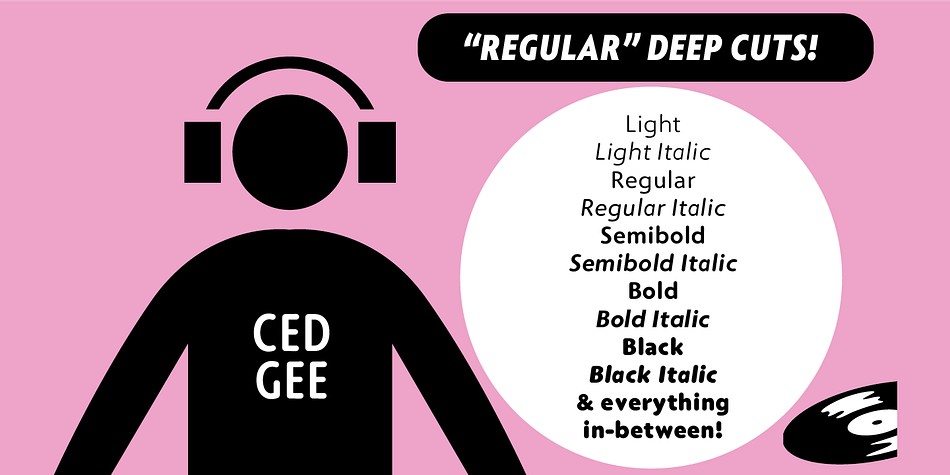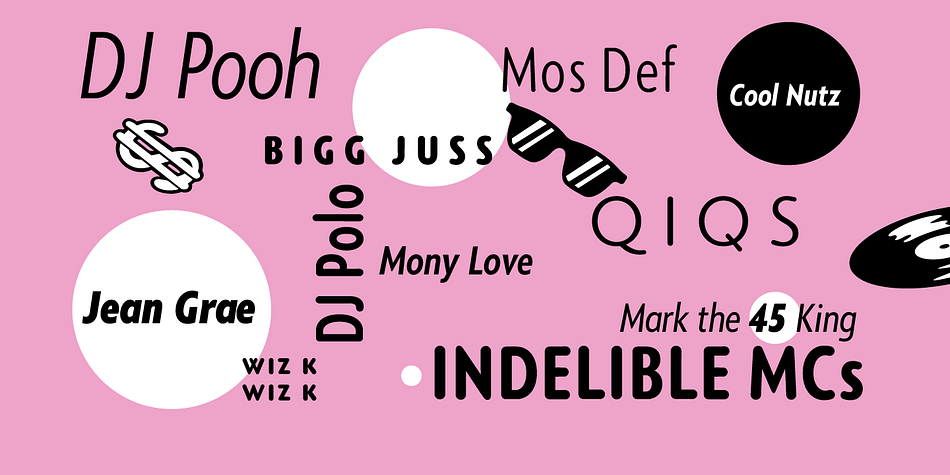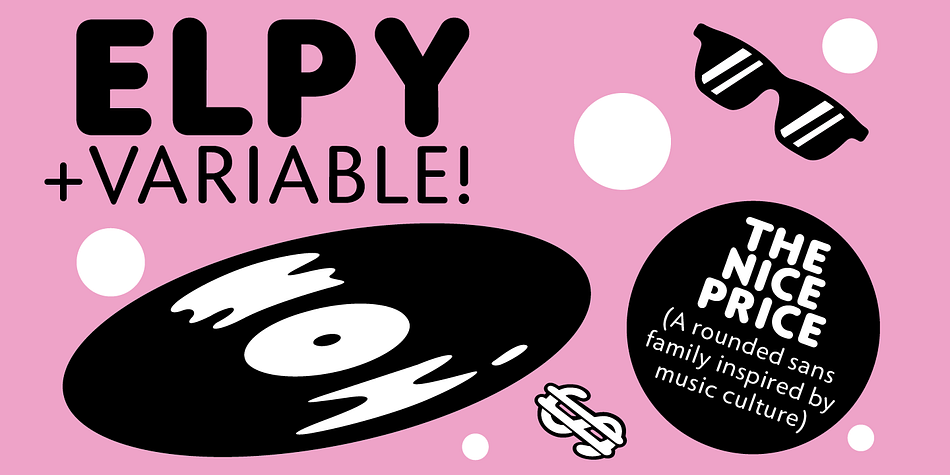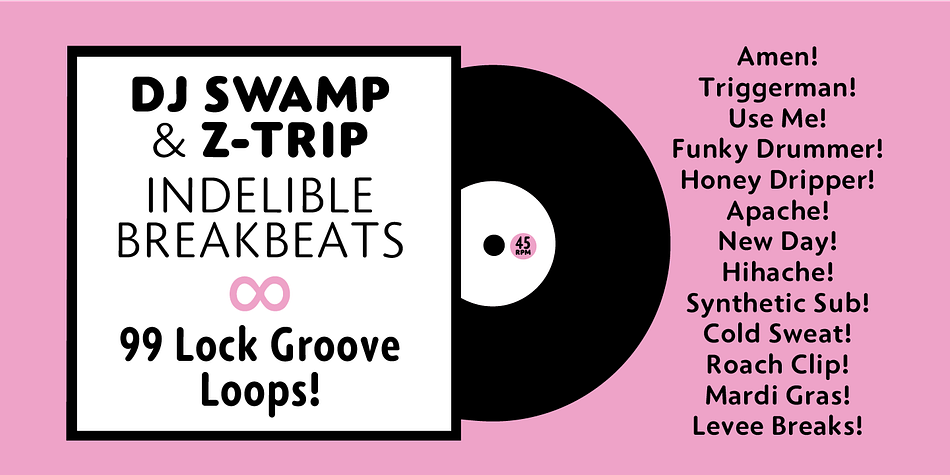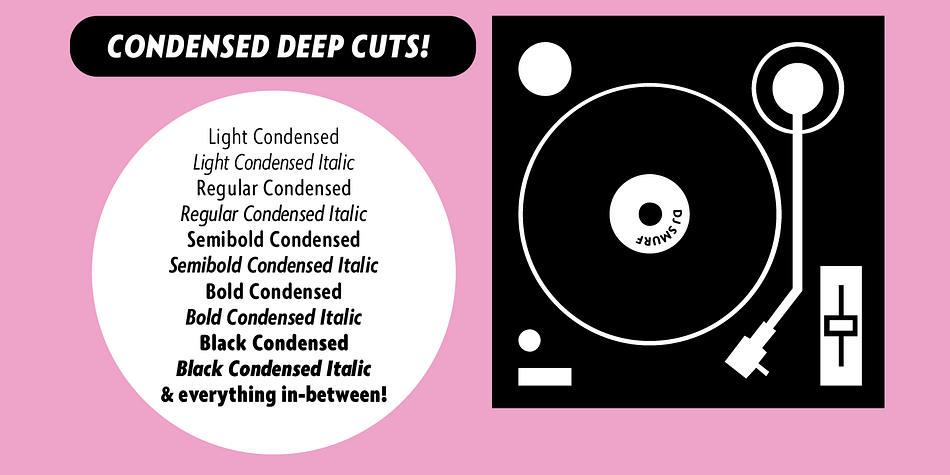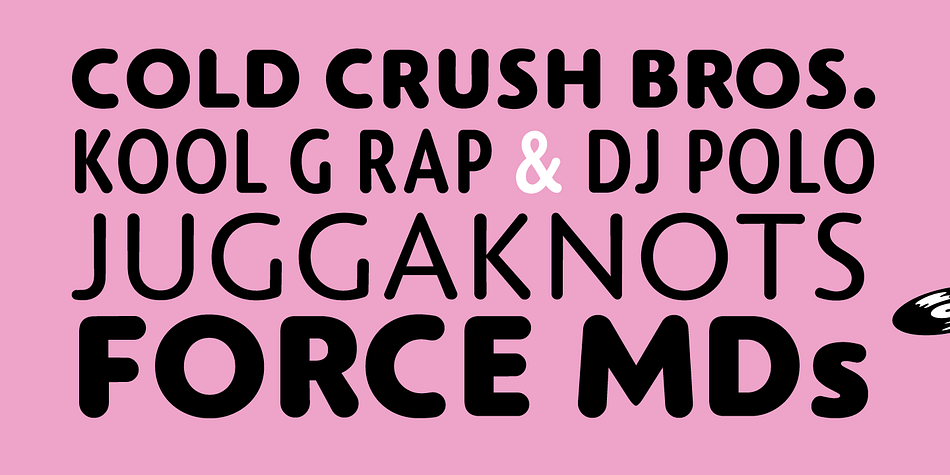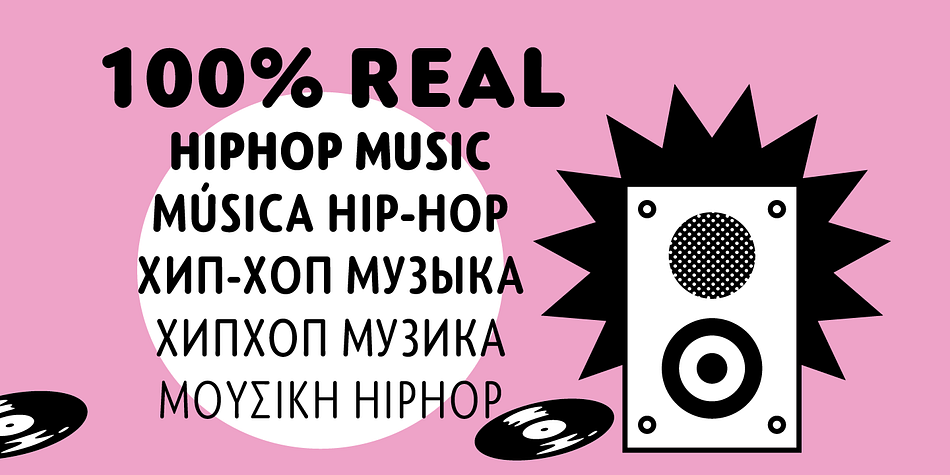
Elpy
Designed by Ian Lynam, Elpy is a sans serif font family. This typeface has twenty-four styles and was published by Wordshape.
Elpy is a friendly rounded sans serif workhorse family inspired by all things music! Spanning 22 Condensed and Regular weights with true italics, Elpy will fit right in with your record collection and your font collection! Elpy Variable combines all of the weights in two variable font files with weight and width axes.
The Elpy family includes language support for Western and Eastern European languages, Greek and Cyrillic.
Ian Lynam dreamt up Elpy one day when he visited a record pressing plant outside Tokyo, watching vinyl pellets being melted down and a fresh batch of 7-inch records get pressed. Despite the smell, a seed was planted that would be extruded into Elpy’s rounded forms half a year later…
Elpy Light and Regular function as highly readable text typefaces, while the bolder and lighter weights are perfect for display work. Elpy’s rounded terminals make the family perfect for screen-based work, as well as for print conditions of any resolution—from offset to Risograph.